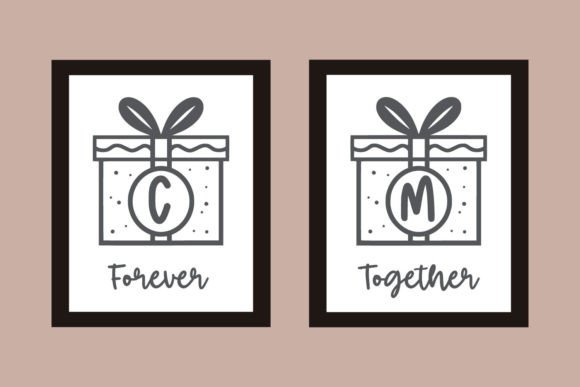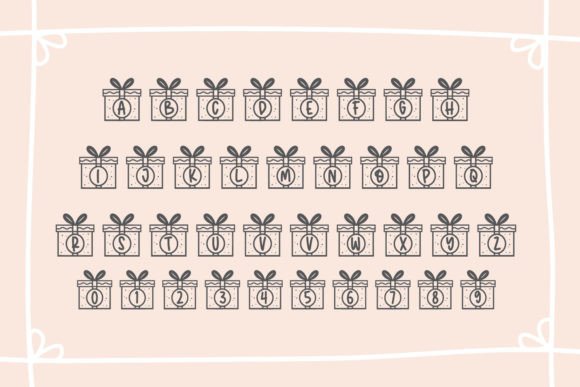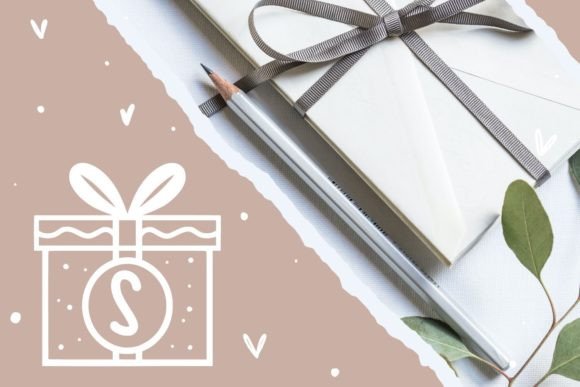
Introduction to Monogram Gift Box Font
Monogram Gift Box is a timeless and delicate decorative font.
It features gorgeous capital letters that will take your crafting projects to the next level .
Key Features of Monogram Gift Box Font